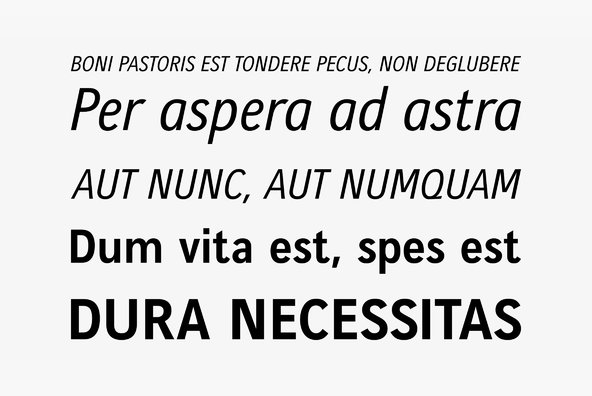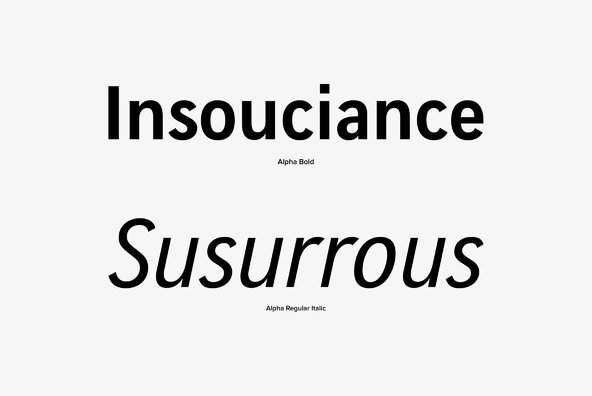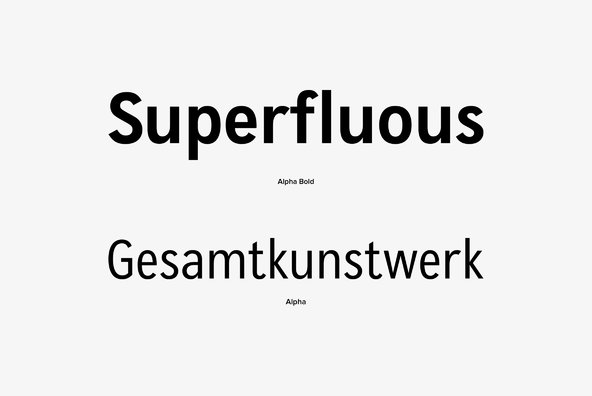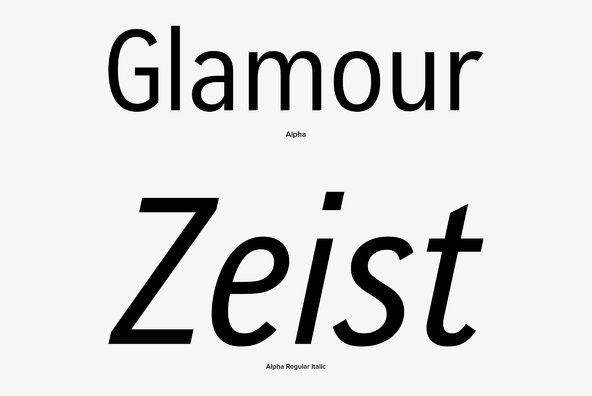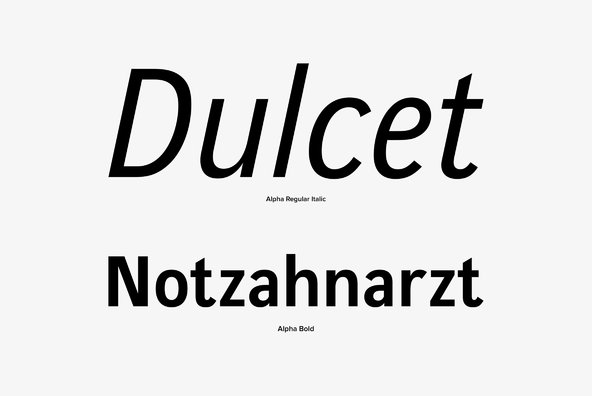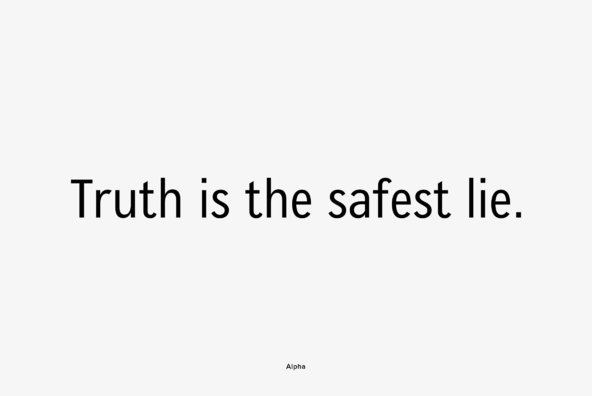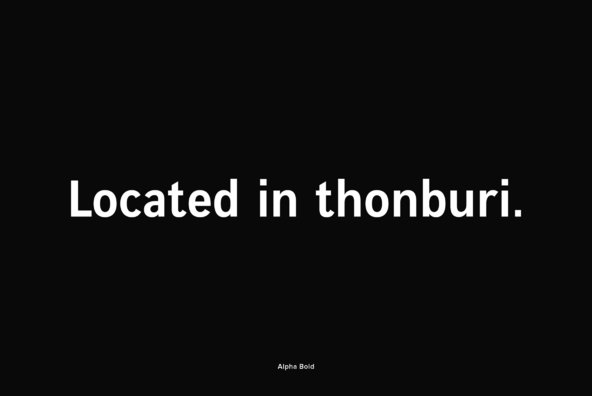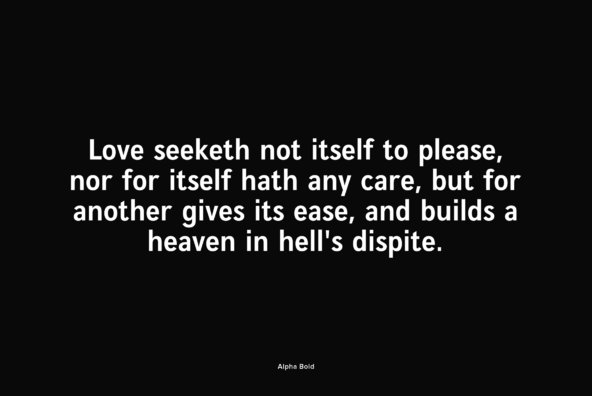
Alpha is a modern Sans Serif design, very elegant and readable but still also economic. Alpha is offered in regular, bold and italic, with the bold italic still in the works. Alpha is strikingly clear and without any flourishes. Its pretty large x-height guarantees excellent readability, and the design is easily recognized. Designed by Maren Engelhardt in 2001. Contains language support for West, East, Turkish, Baltic, and Romanian.